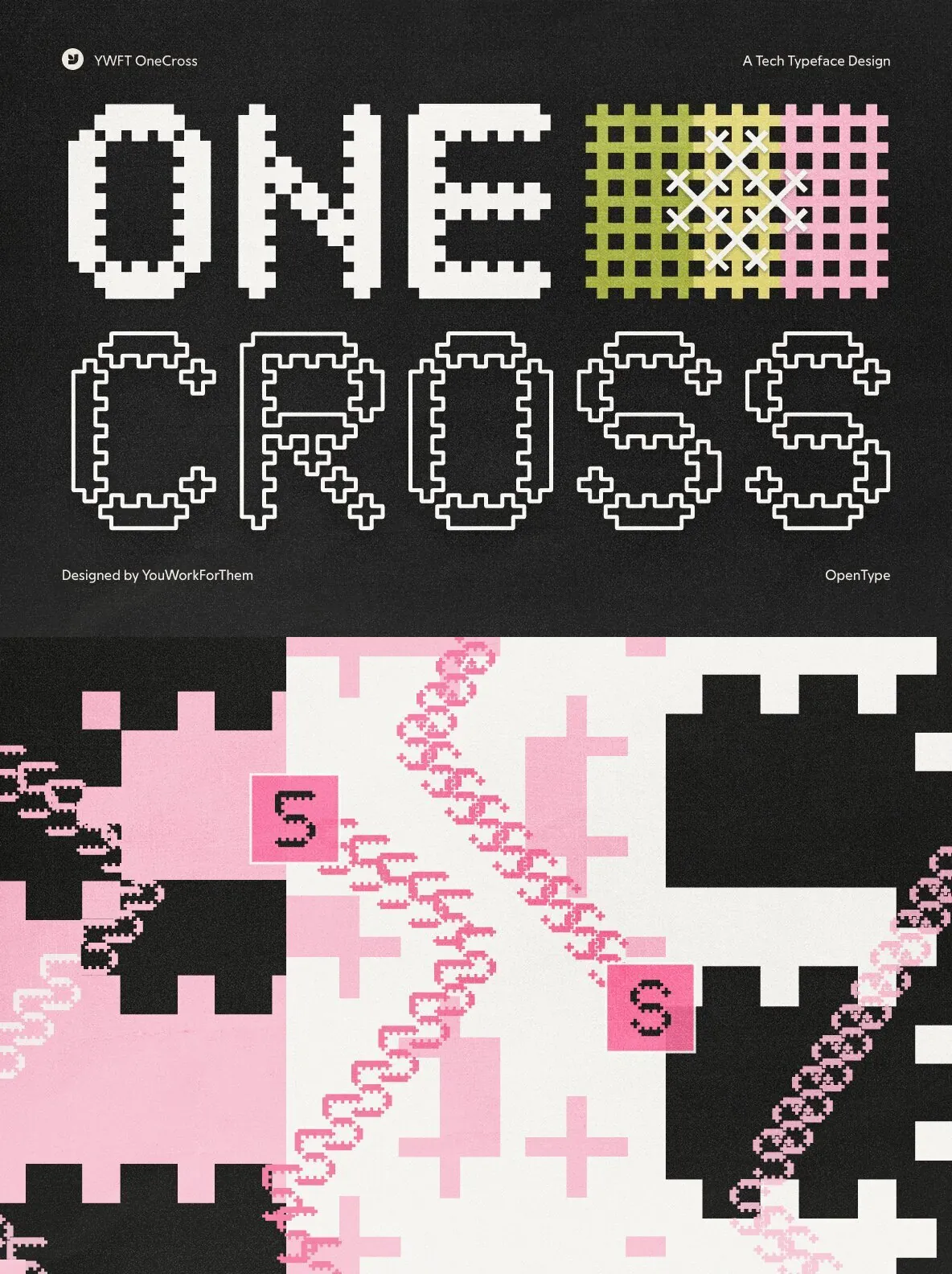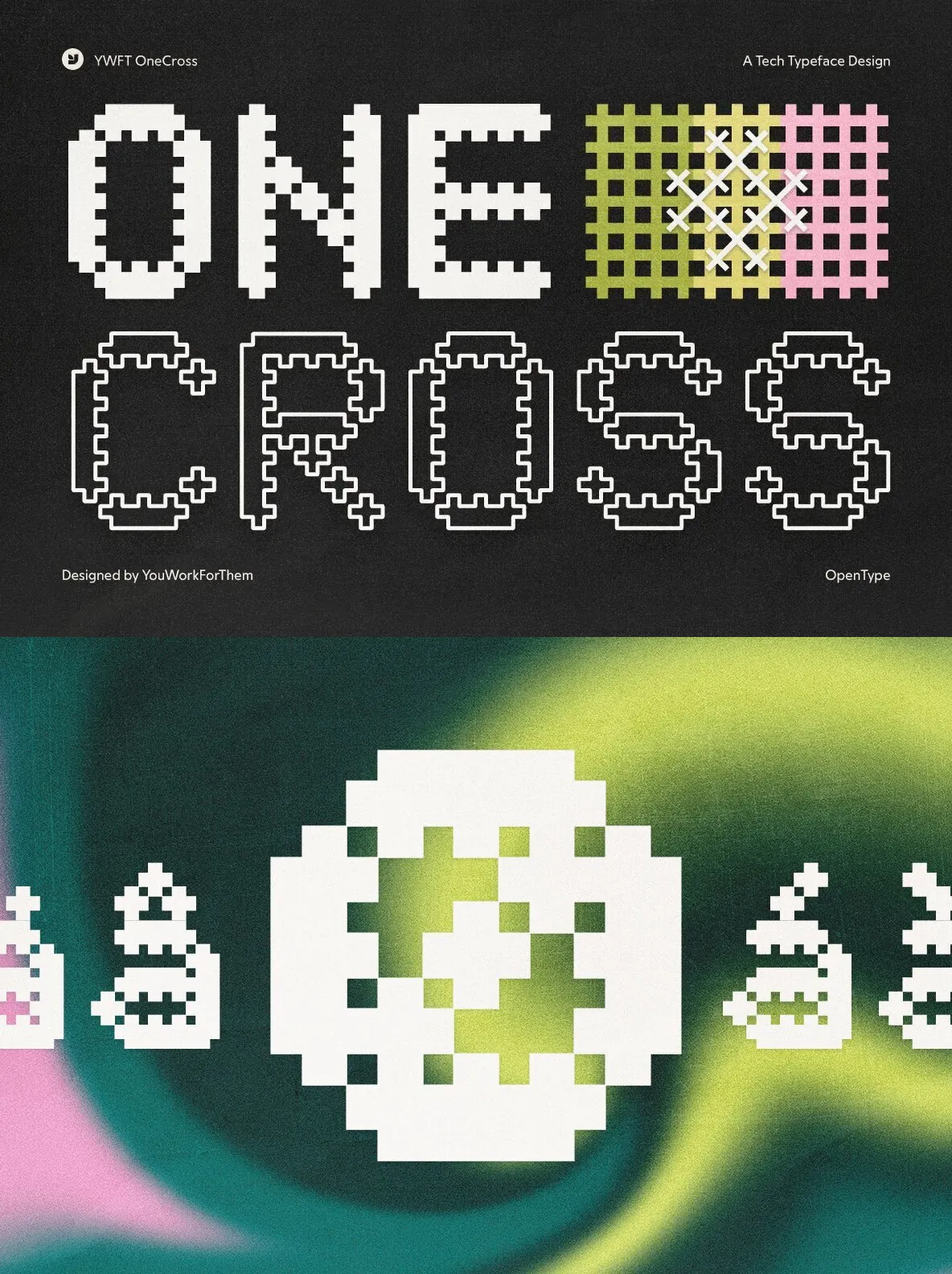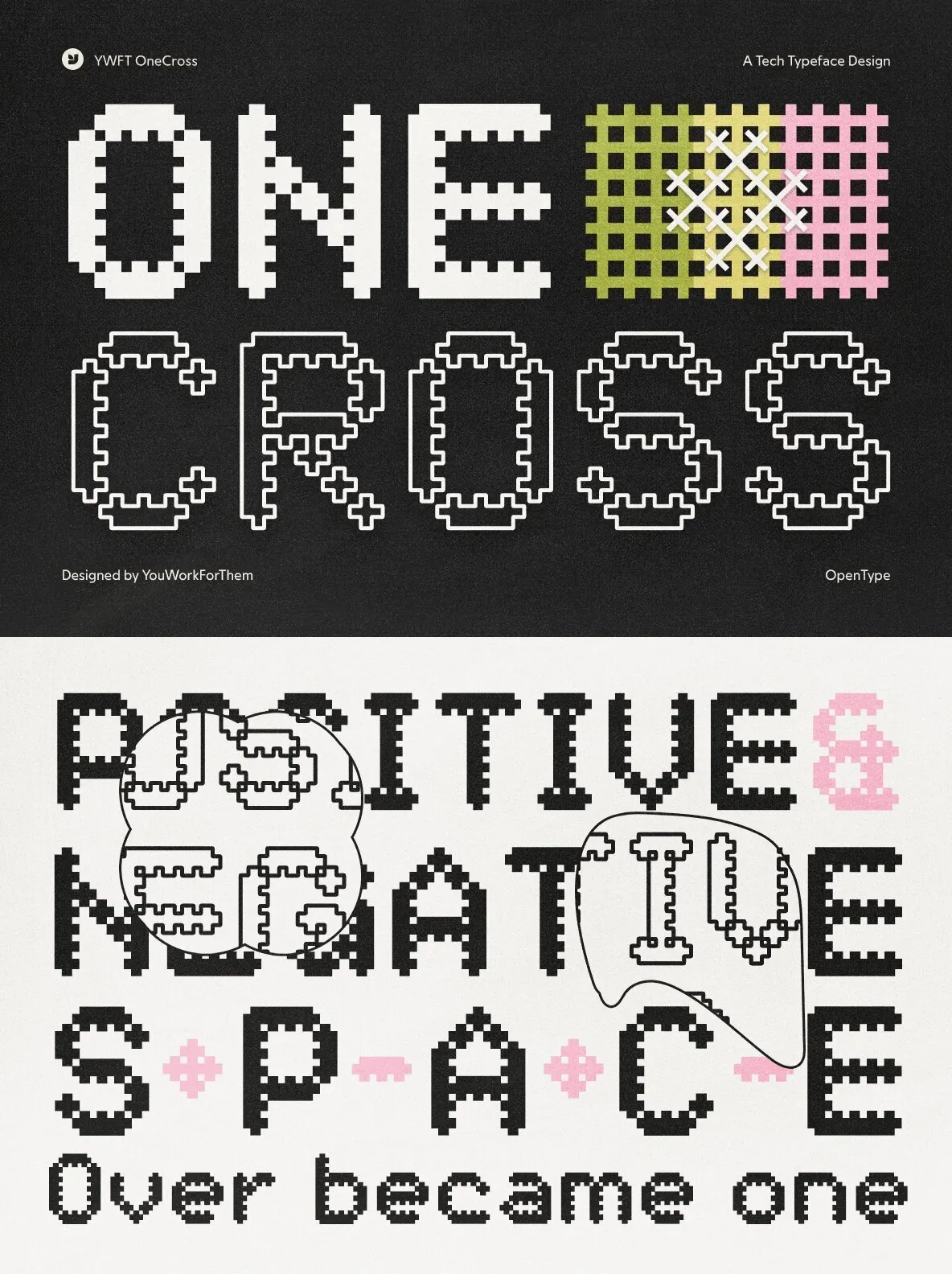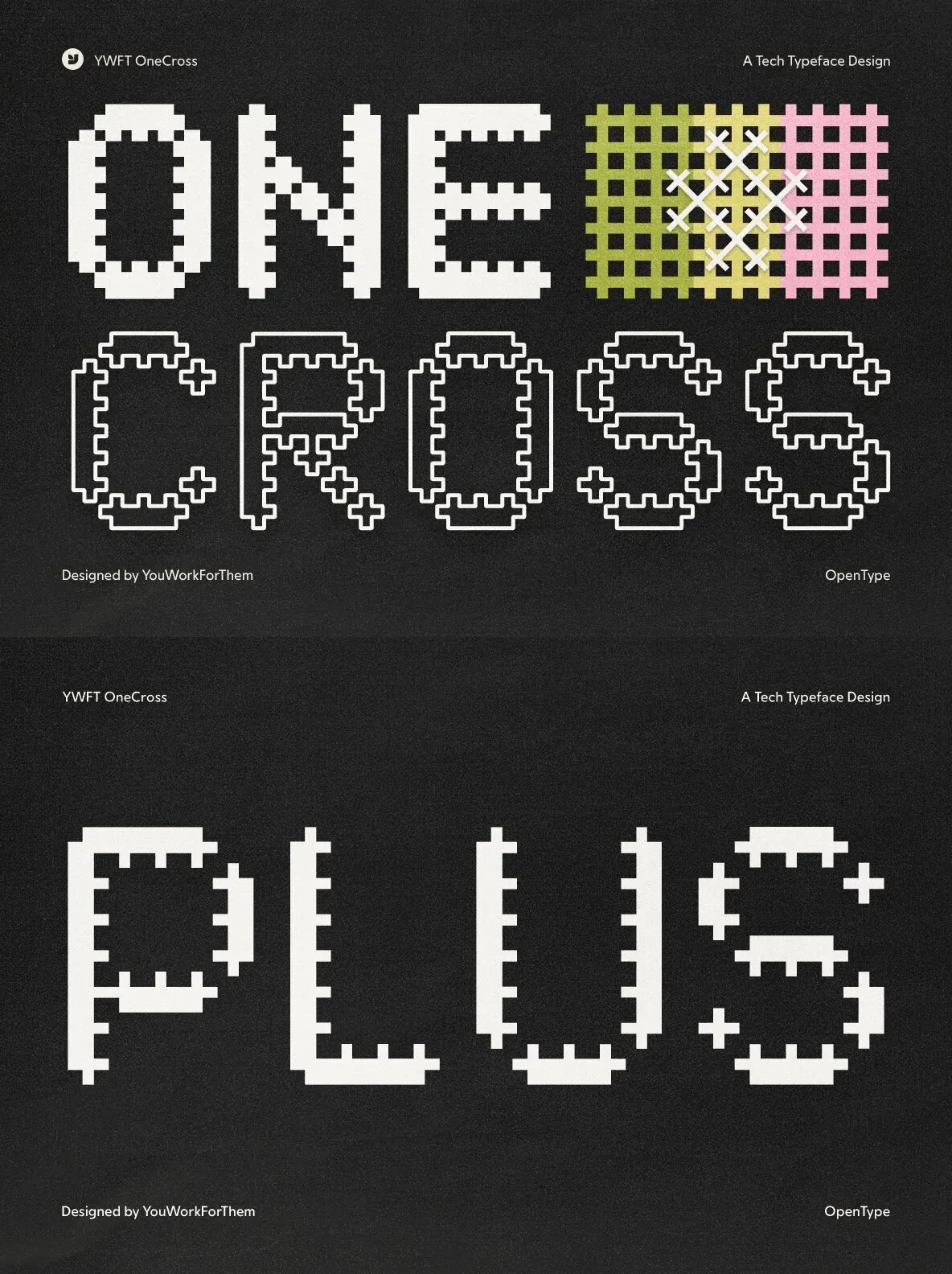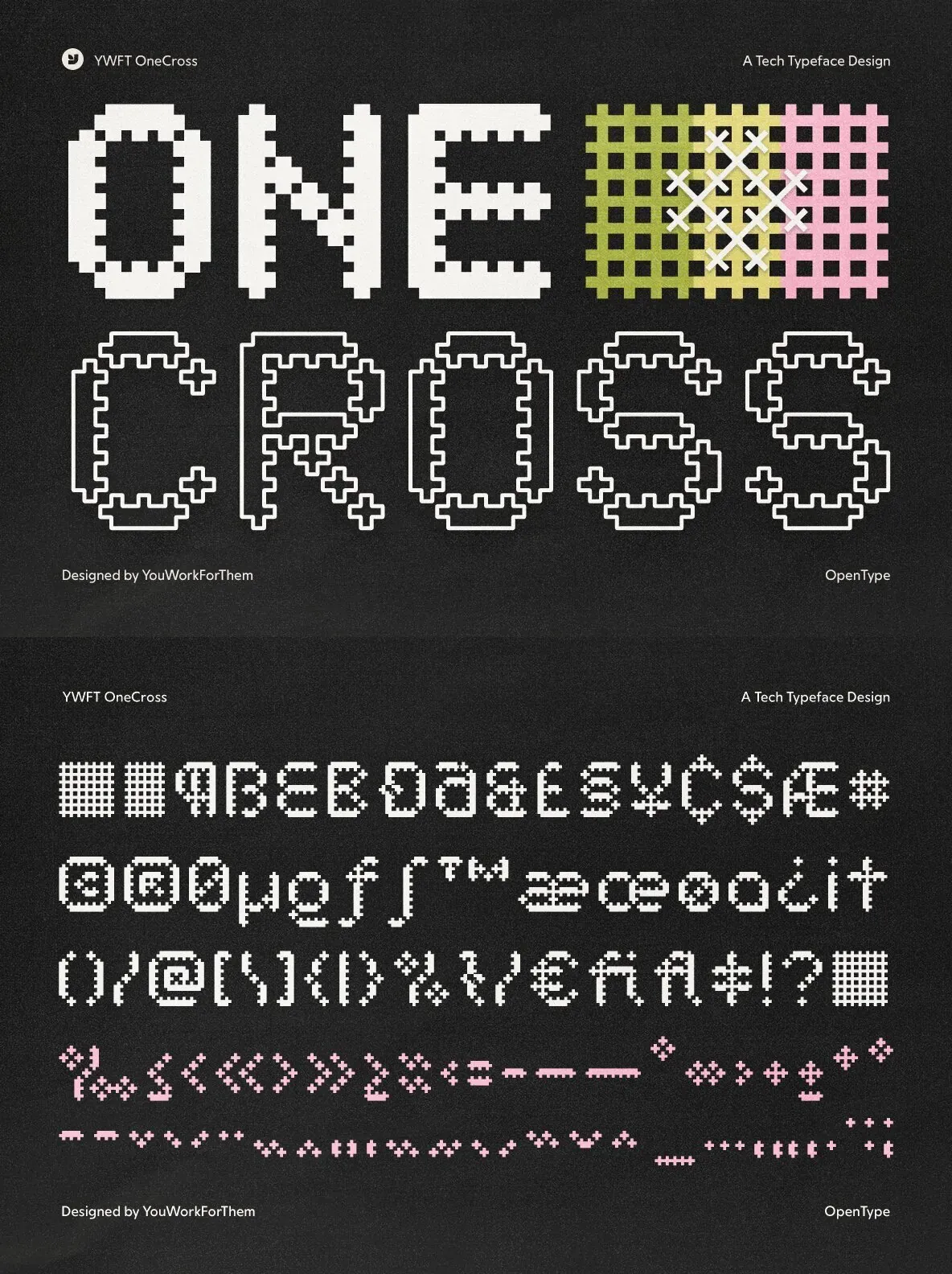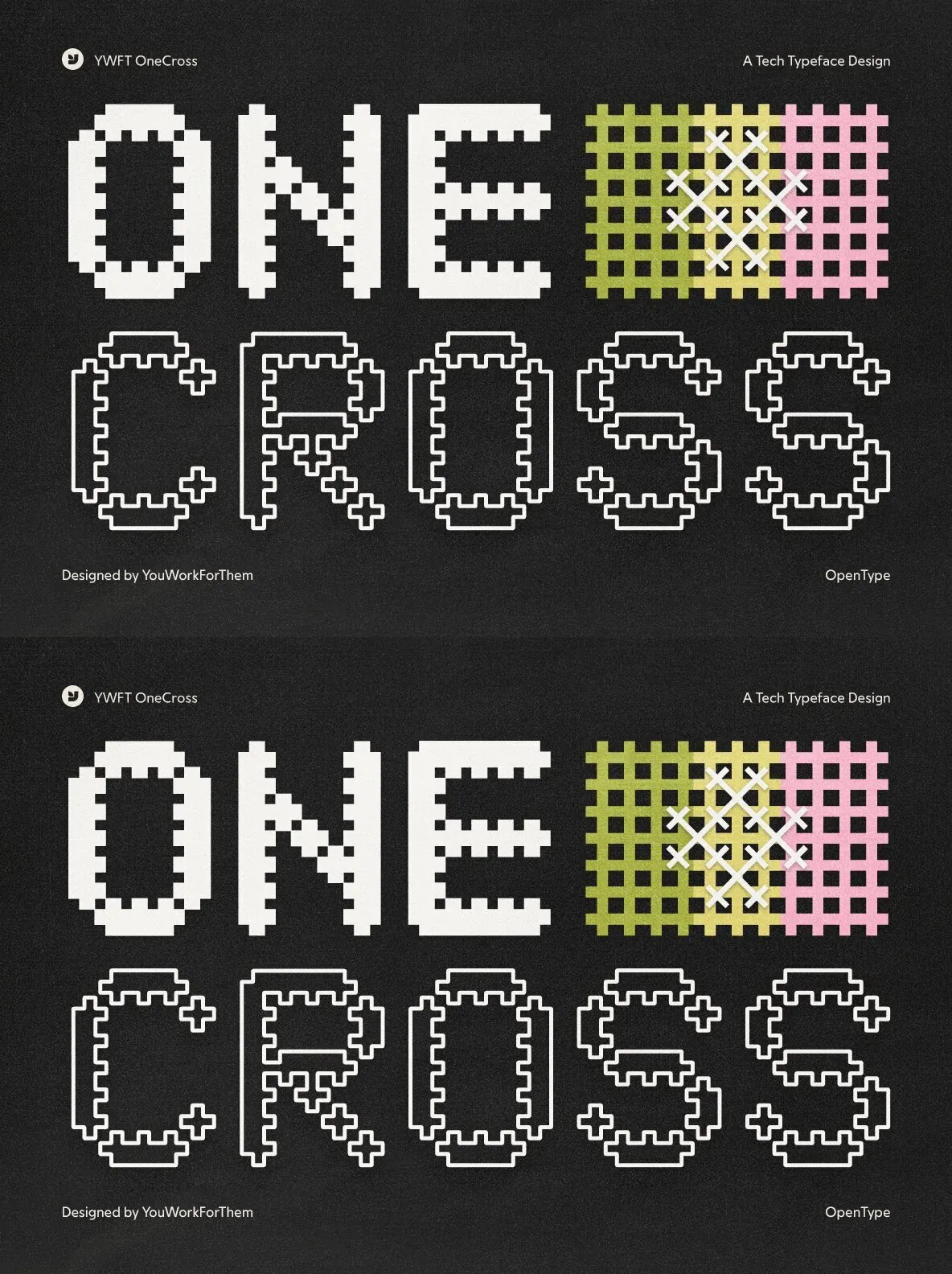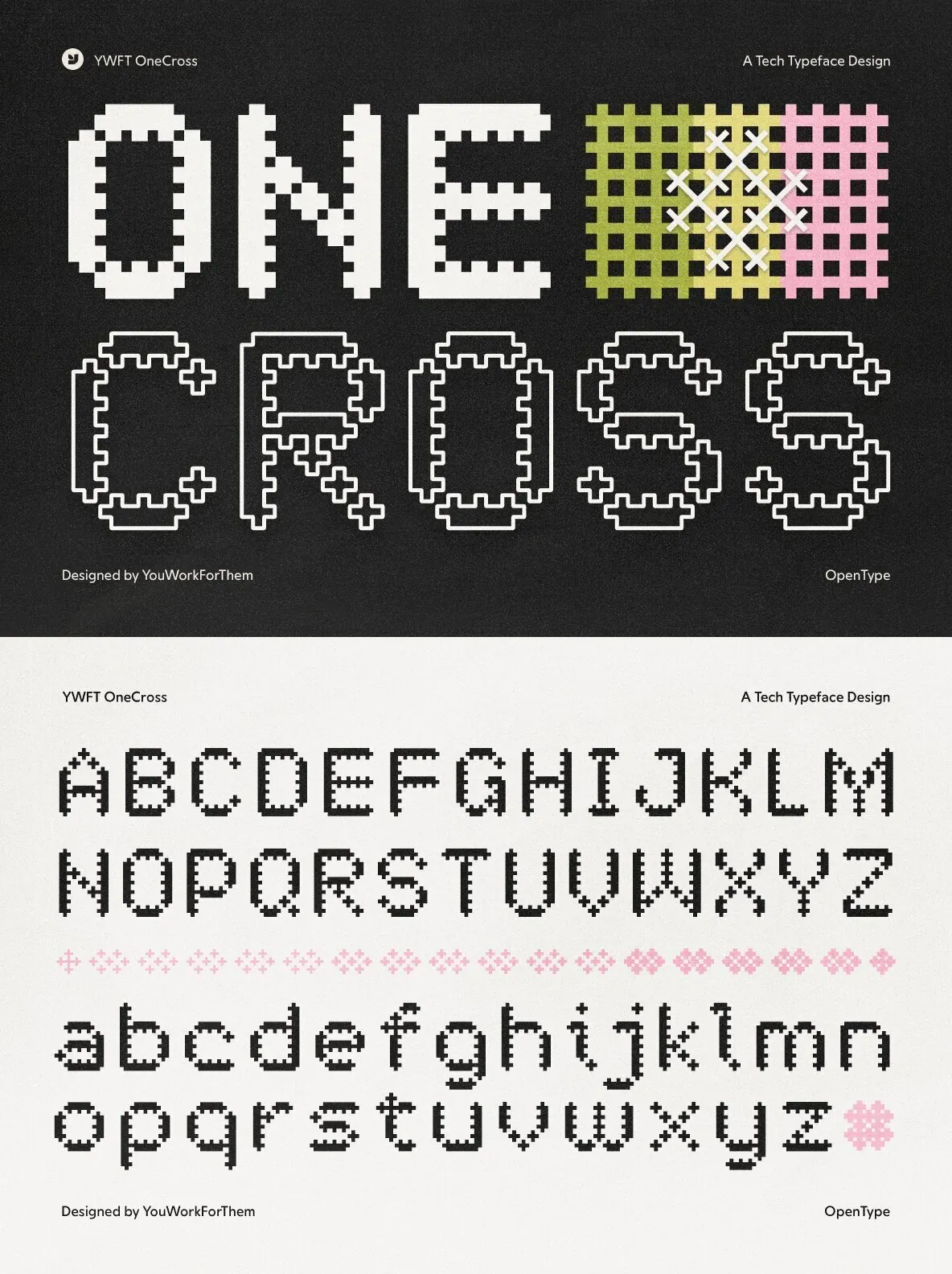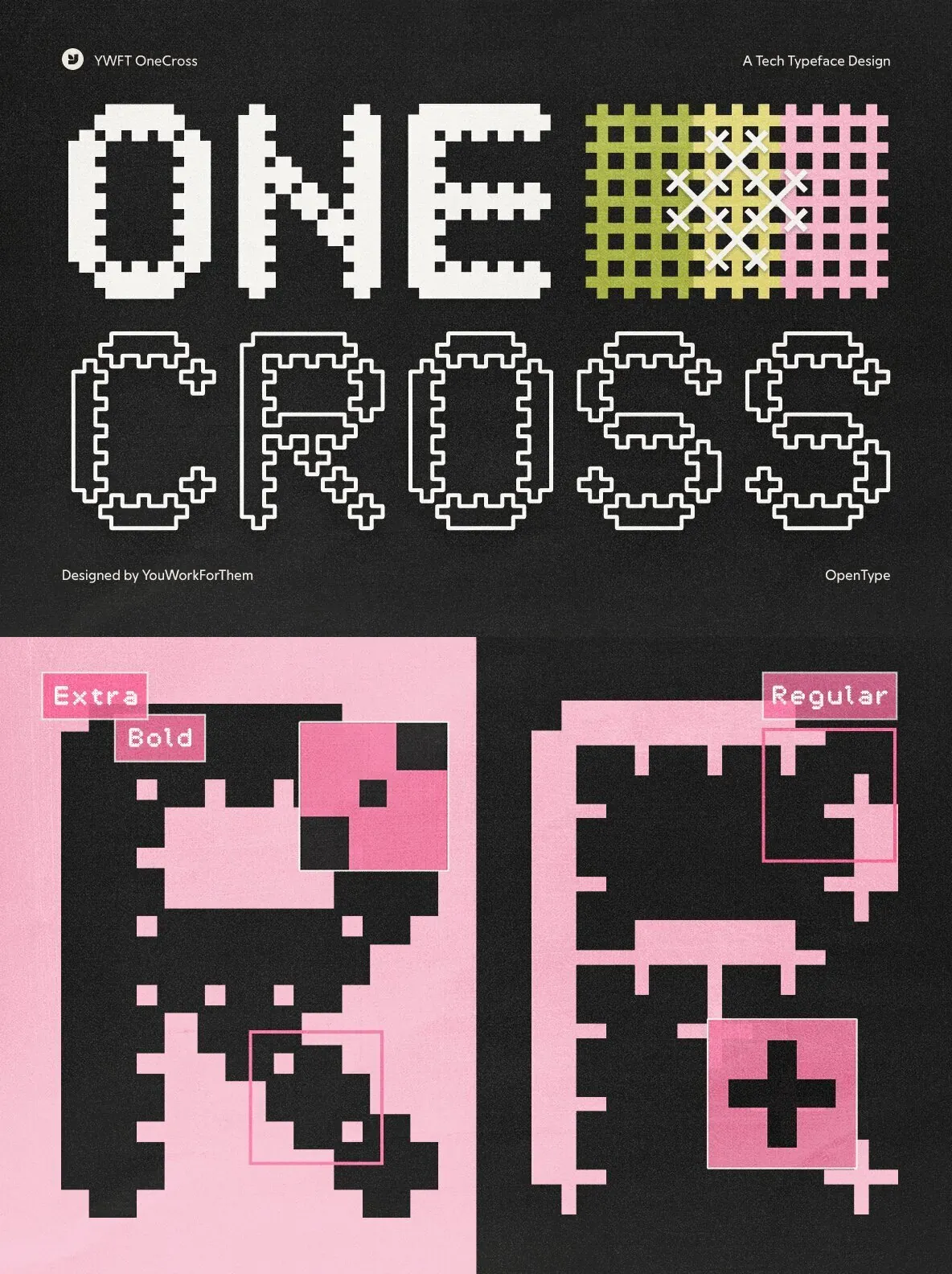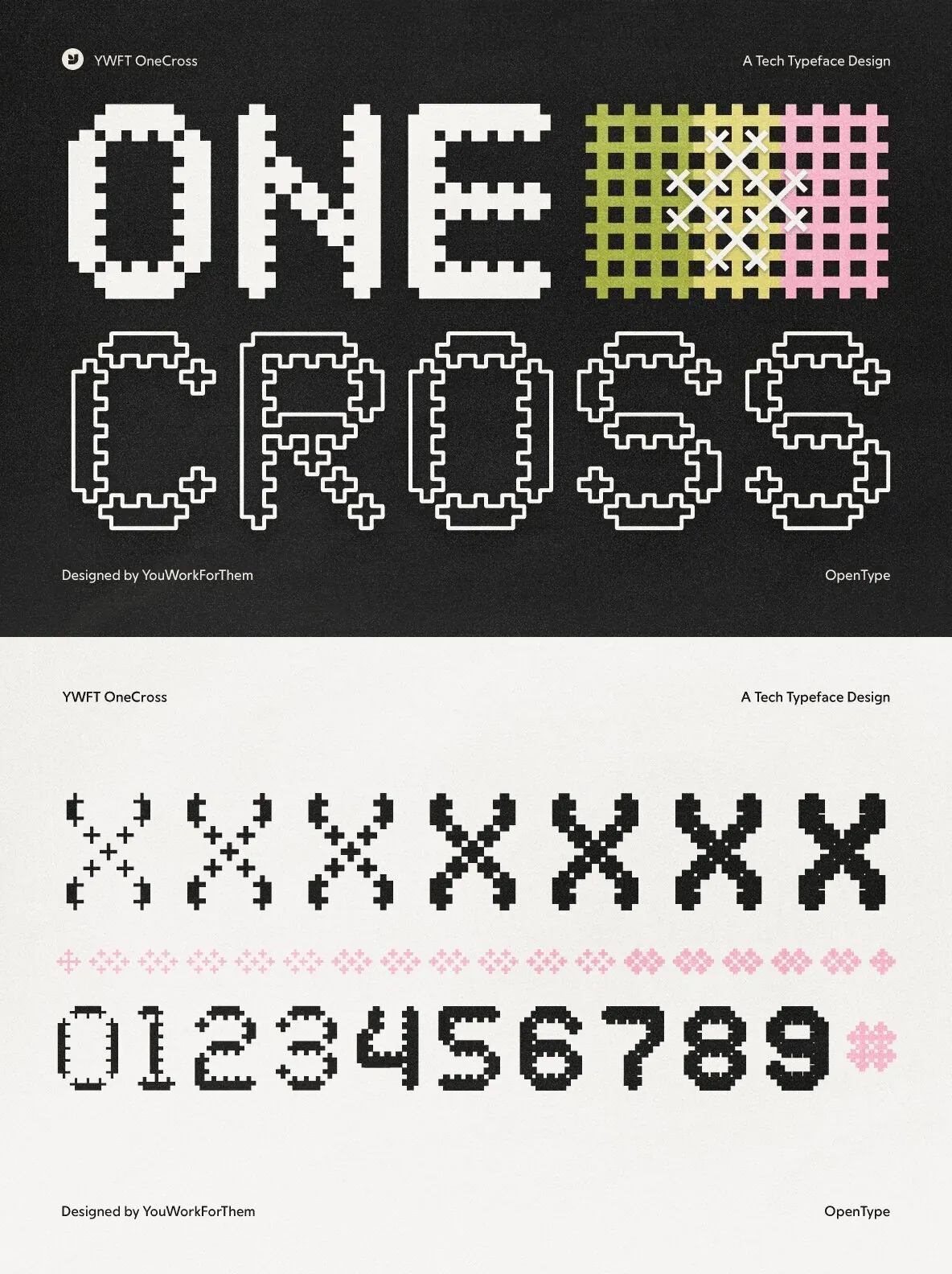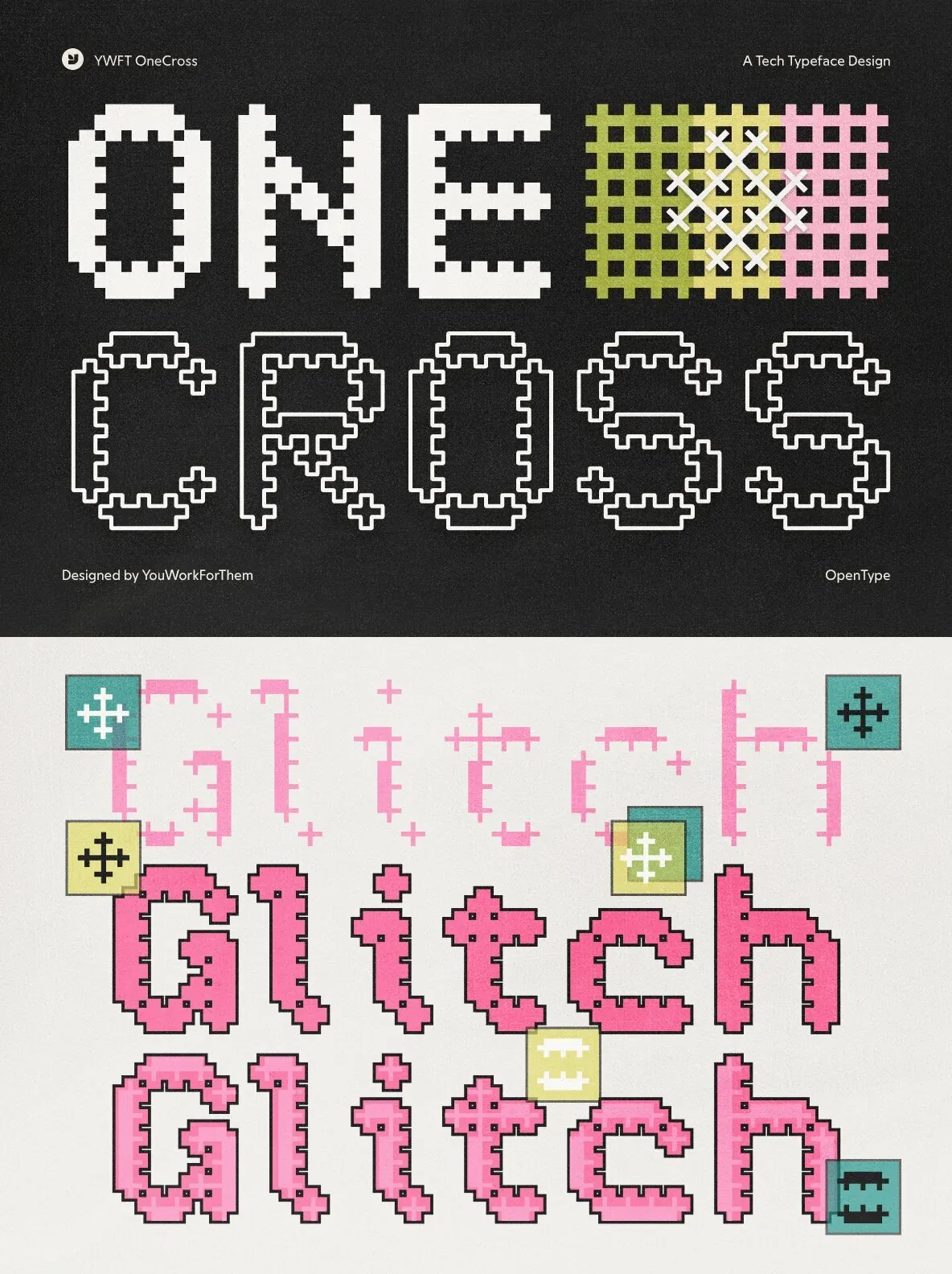
YWFT OneCross: A Bold Typeface for Futuristic Design
YWFT OneCross is a striking typeface built entirely from plus signs of varying weights, creating a visually arresting and unique typographic style. Originally developed from YWFT OverCross in 2002, the font was reimagined to better integrate positive and negative space, resulting in a more balanced and cohesive visual experience. With this evolution, YWFT OneCross was born, making a powerful impact on tech-driven and futuristic design projects.
Design Origins and Evolution
YWFT OneCross owes its origins to YWFT OverCross, but underwent significant refinement in the same year to enhance its visual harmony. The transformation from OverCross to OneCross reflects a meticulous approach to blending form and function, balancing bold strokes with negative space for a distinctive look. This typeface embodies the future, delivering a strong aesthetic that’s perfect for modern, high-tech designs.
Ideal Applications
Tech and Futuristic Projects:
YWFT OneCross brings an edgy, forward-thinking vibe to any project, making it a perfect choice for digital interfaces, futuristic branding, or technological applications.
Article Headers and Editorial Design:
With its commanding presence, YWFT OneCross works brilliantly in headlines, drawing readers in with its bold and unconventional style.
Branding and Advertising:
The font’s structured geometry and dynamic plus-sign forms make it ideal for branding projects that want to stand out with a bold and innovative touch.
Notable Use Cases
Since its inception, both YWFT OneCross and its predecessor have been featured in numerous magazines and websites, gaining popularity in editorial and digital design realms. The font’s unique structure and adaptability to various weights have made it a favorite for creatives seeking something both modern and impactful.
OpenType Features
Converted to
OpenType
in 2010, YWFT OneCross now includes enhanced functionality, offering greater flexibility for designers across both print and digital platforms.